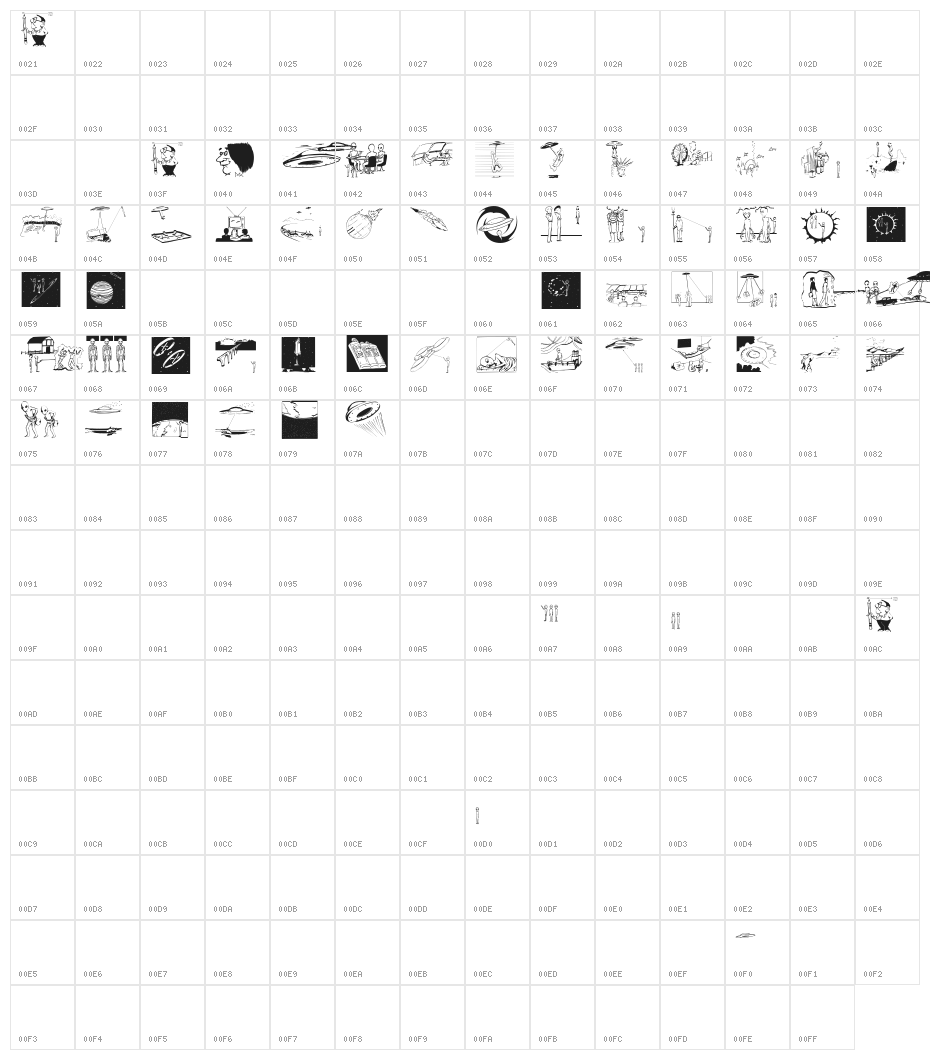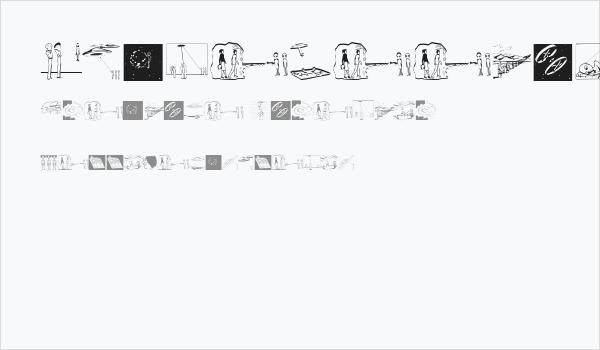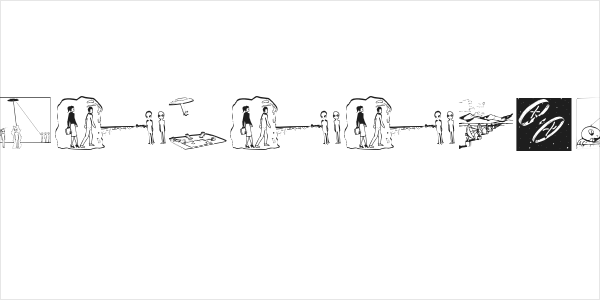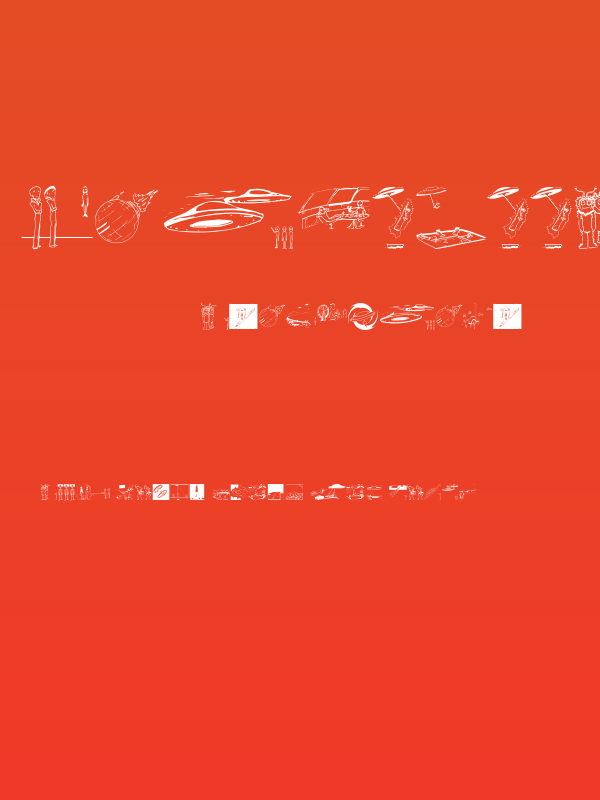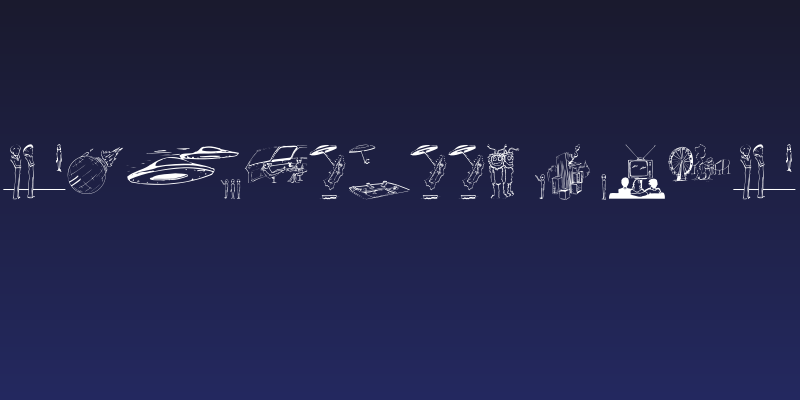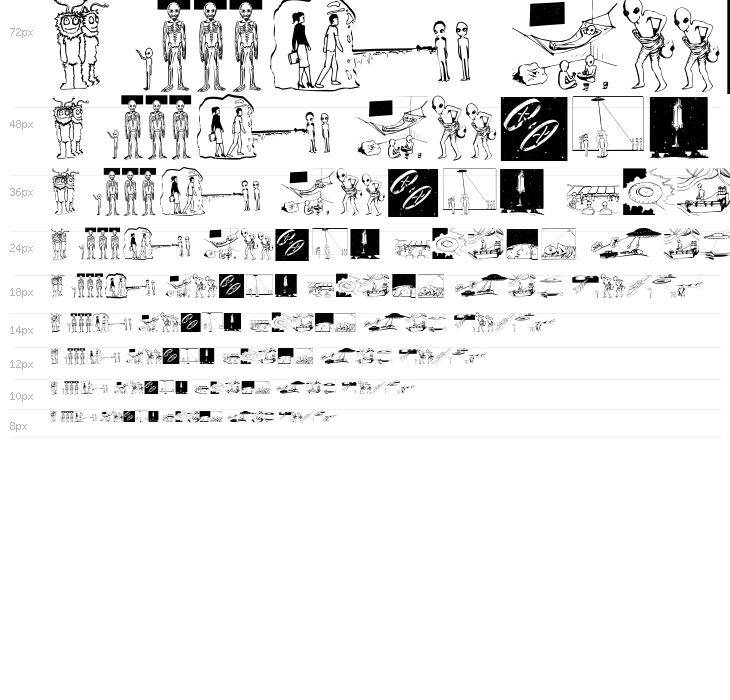
SpaceMeetings Font
SpaceMeetings Description
A highly decorative and illustrative font composed of whimsical, hand-drawn cartoon scenes featuring aliens, spaceships, and space-themed meetings. Each character is represented by a unique, detailed drawing rather than a traditional letterform, creating a playful and narrative visual style.
| Overall Style | Decorative, Whimsical, Cartoonish |
| Use Case | Logos, Headlines, Posters, Themed Graphics |
| Proposed Projects | ChildrenΓ’β¬β’s books, sci-fi posters, comic titles, educational materials, themed event invitations. |